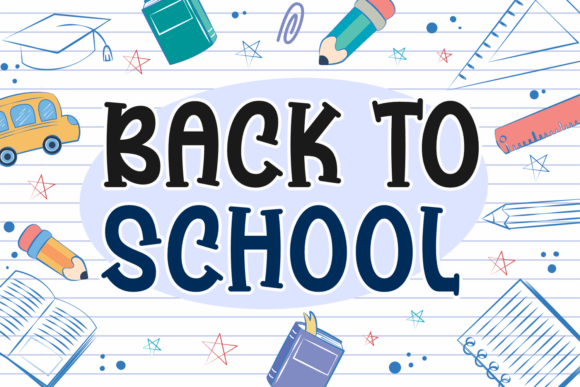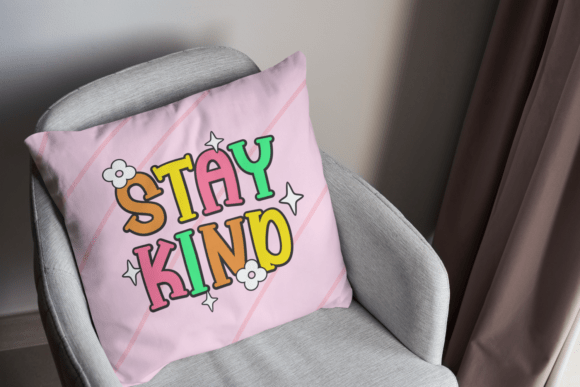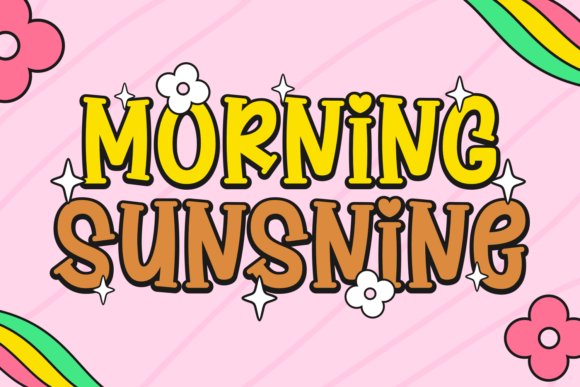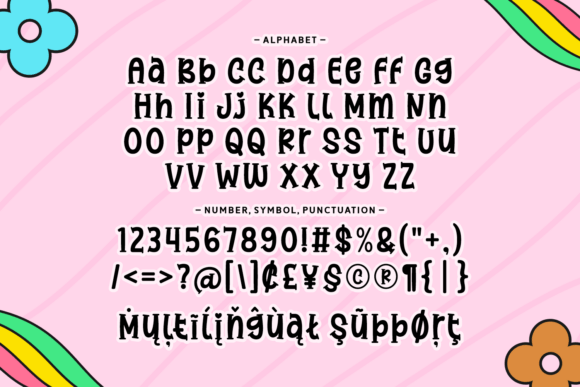
Bingo Childs Font: The Ultimate Display Font for Fun and Playful Designs
Are you looking for a font that bursts with personality and charm? Look no further than Bingo Childs Font! This fun and vibrant display font is perfect for designs that radiate happiness and energy. With its bold, rounded letterforms, accented with whimsical curves and quirky details, Bingo Childs is ideal for children’s projects, playful logos, bright packaging, or eye-catching social media graphics.
A Font that Delivers an Approachable and Cheerful Vibe
Bingo Childs Font delivers an approachable and cheerful vibe that’s perfect for designs that need to connect with a younger audience. Its playful and lively structure makes it ideal for designs that require a fun and energetic feel. Whether you’re creating a children’s book, a playful logo, or a social media graphic, Bingo Childs is the perfect font to bring your design to life.
Key Features of Bingo Childs Font
- Bold and Rounded Letterforms: Bingo Childs features bold, rounded letterforms that are perfect for creating eye-catching designs.
- Whimsical Curves and Quirky Details: The font is accented with whimsical curves and quirky details that add to its playful and lively feel.
- Multilingual Support: Bingo Childs supports multiple languages, making it a versatile font for designers who work with international clients.
- Versatile Structure: The font has a versatile structure that makes it suitable for a wide range of design applications.
Design Applications for Bingo Childs Font
Bingo Childs Font is perfect for a wide range of design applications, including:
- Children’s Projects: The font is ideal for children’s books, educational materials, and other projects that require a fun and playful feel.
- Playful Logos: Bingo Childs is perfect for creating playful logos that need to connect with a younger audience.
- Bright Packaging: The font is suitable for bright and eye-catching packaging designs that require a fun and energetic feel.
- Social Media Graphics: Bingo Childs is ideal for creating eye-catching social media graphics that need to stand out from the crowd.
Why Choose Bingo Childs Font?
There are many reasons why you should choose Bingo Childs Font for your next design project. Here are just a few:
- Unique and Playful Feel: The font has a unique and playful feel that’s perfect for designs that need to connect with a younger audience.
- Versatile and Adaptable: Bingo Childs is a versatile font that can be used for a wide range of design applications.
- Easy to Read: The font is easy to read, even at small sizes, making it perfect for designs that require a lot of text.
- Multilingual Support: Bingo Childs supports multiple languages, making it a great choice for designers who work with international clients.
Tips for Using Bingo Childs Font
Here are a few tips for using Bingo Childs Font in your designs:
- Use it for Headings: Bingo Childs is perfect for headings and titles, where its bold and playful feel can really shine.
- Pair it with a Simple Font: For body text, pair Bingo Childs with a simple font to create a nice contrast.
- Experiment with Colors: Bingo Childs looks great in bright and bold colors, so don’t be afraid to experiment.
- Use it for Display Text: The font is perfect for display text, such as titles, headings, and captions.
In conclusion, Bingo Childs Font is a fun and vibrant display font that’s perfect for designs that radiate happiness and energy. With its bold, rounded letterforms, accented with whimsical curves and quirky details, Bingo Childs is ideal for children’s projects, playful logos, bright packaging, or eye-catching social media graphics. Its multilingual support and versatile structure make it a great choice for designers who need a font that can adapt to different design applications. So why not give Bingo Childs Font a try and see how it can bring your designs to life?